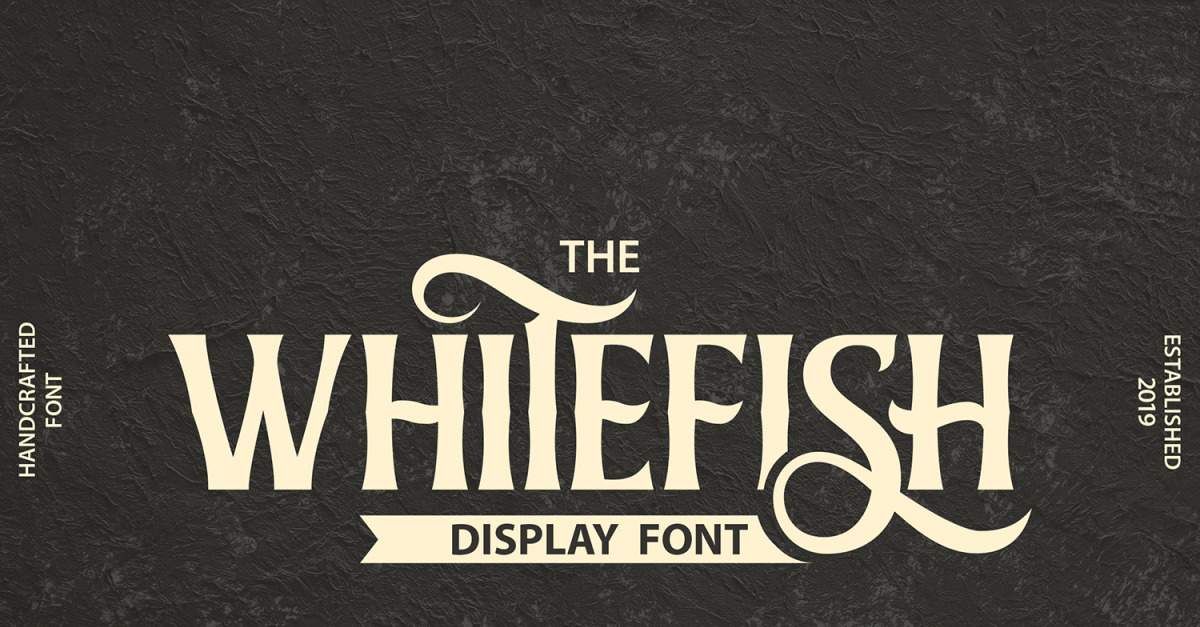
Whitefish | Display Font
**Whitefish | Display Font** with a calligraphy style, So beautiful on invitation like greeting cards, branding materials, business cards, quotes, posters, and more!